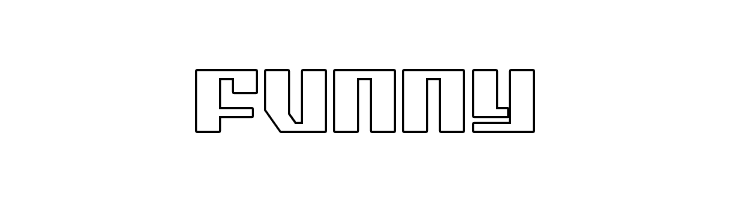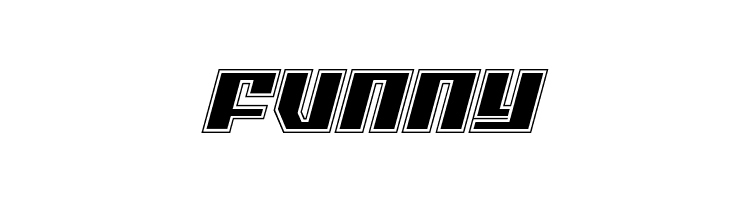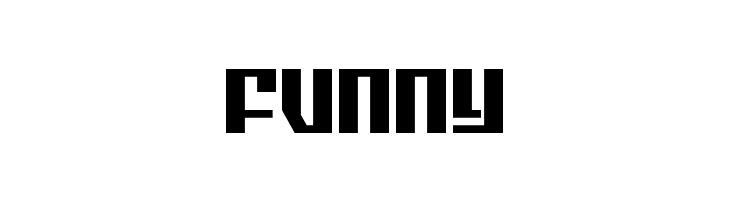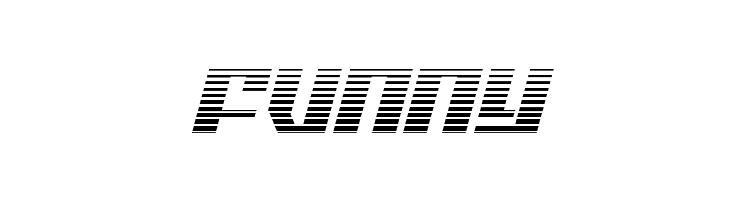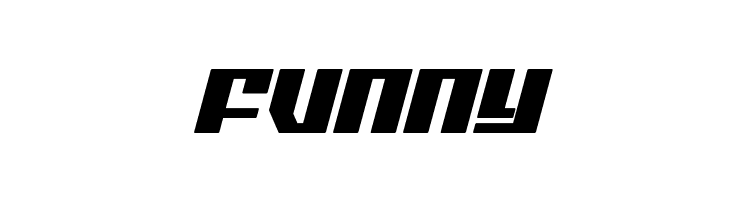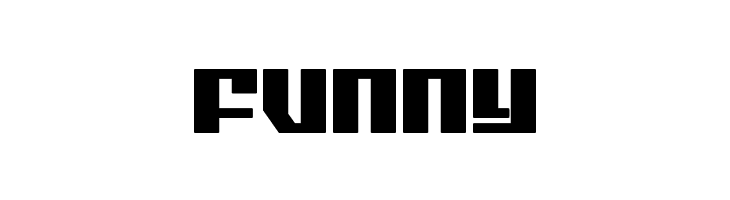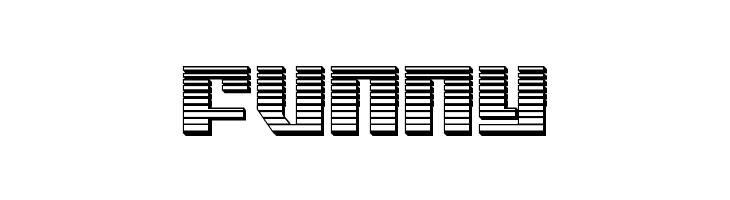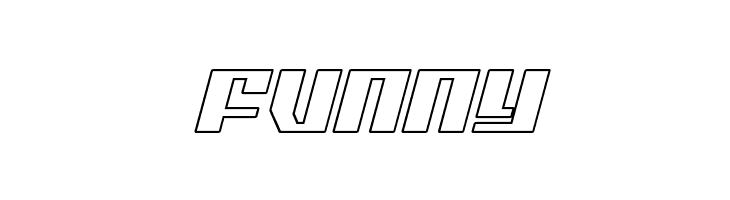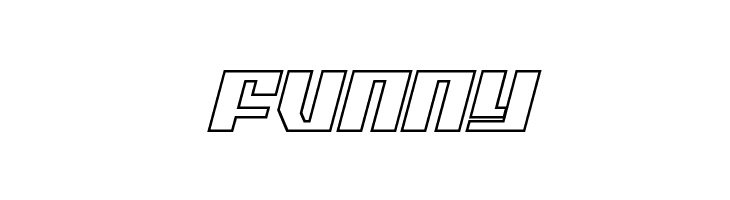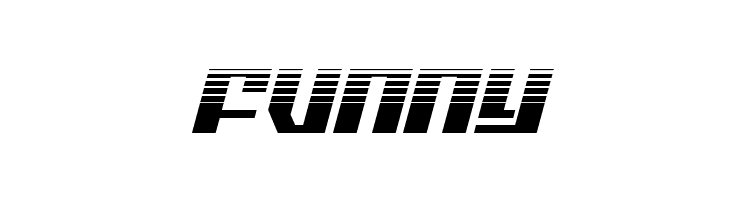
A bold, geometric font with an industrial and modern aesthetic.
A bold, 3D geometric font with outlined characters and a modern aesthetic.
A bold, 3D italic font with outlined characters and a modern, dynamic style.
A bold, geometric font with a futuristic and industrial design.
Bold, italicized font with geometric outlines and a dynamic, modern style.
A bold, geometric font with strong, angular lines and a modern industrial feel.
A bold, italicized font with angular, dynamic characters and a modern style.
A bold, outlined, italic font with a geometric and modern style.
A bold, geometric outline font with a modern, industrial feel.
A bold, geometric font with a three-dimensional, retro-futuristic style.
A bold, italicized font with a chrome-like, futuristic design.
A bold, condensed, and geometric font with a strong industrial feel.
A bold, condensed, and italic font with a modern, geometric style.
A bold, geometric font with an expanded, blocky style and modern aesthetic.
A bold, expanded, and italicized font with a dynamic and futuristic style.
A modern, striped font with a gradient effect and geometric shapes.
A bold, italicized font with a dynamic striped pattern.
A bold, geometric font with a halftone pattern and dynamic style.
A bold, italicized font with a halftone pattern and modern, dynamic style.
A bold, italic, and geometric font with a futuristic style.
A bold, geometric, and italicized font with a futuristic style.
A bold, angular font with a leftward slant and a modern, dynamic style.
A bold, geometric outline font with a modern industrial feel.
A bold, geometric outline font with an italic slant and modern appeal.
A bold, semi-italic font with a geometric, angular design.
A bold, italic, and angular font with a futuristic style.
Futuristic, bold, italicized display font.
A bold, 3D font with wing-like extensions, perfect for dynamic and action-oriented designs.
A bold, dynamic font with wing-like accents and a modern, edgy style.
A bold, dynamic font with wing-like extensions for a sense of speed and movement.
A bold, slanted font with a halftone effect and dynamic, modern design.
A bold, italicized font with dynamic, angular characters and a sense of motion.
A bold, dynamic font with a futuristic and aggressive style.
A bold, angular font with dynamic wing-like extensions on uppercase letters.